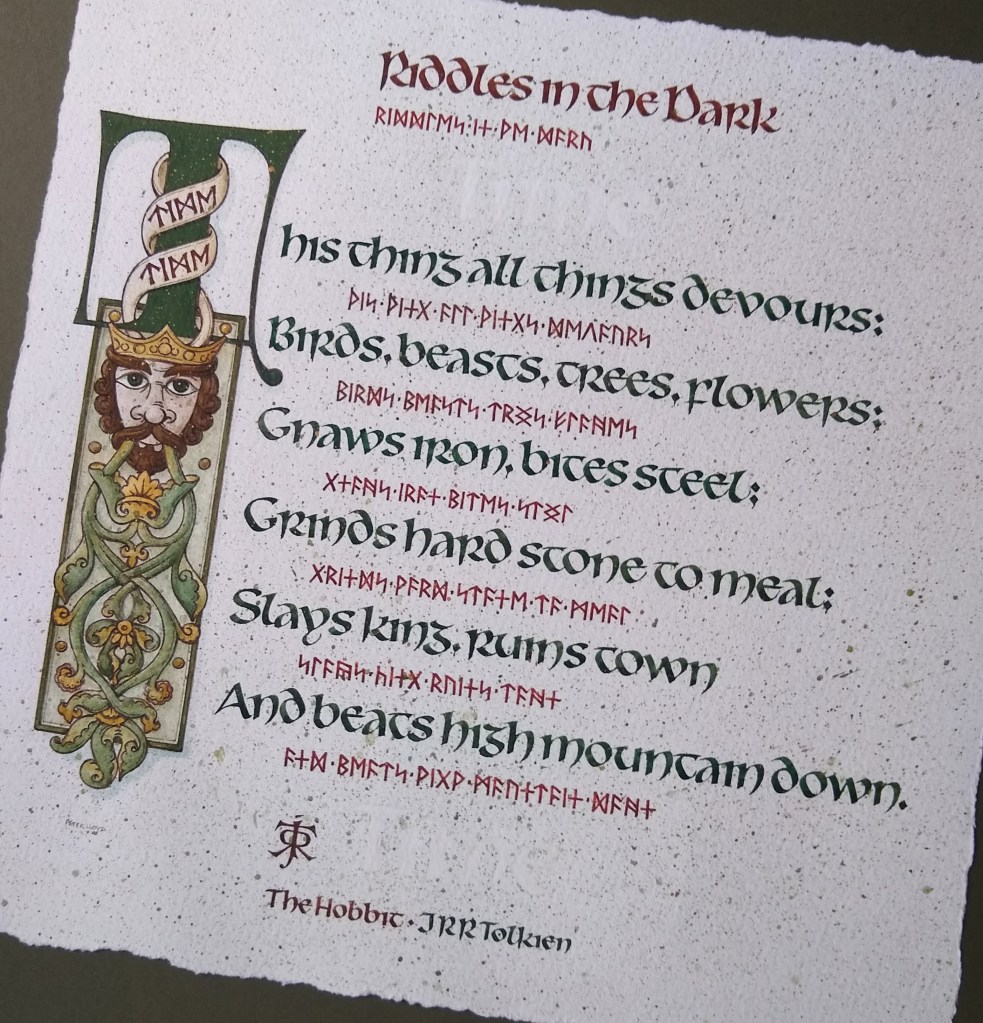
Saxon Script and Runes Revealed with Peter Lloyd – 16th September 2023
SAXON SCRIPTS AND RUNES REVEALED
An adventure into historic lettering and translation of mystic symbols to open up avenues for you to explore.